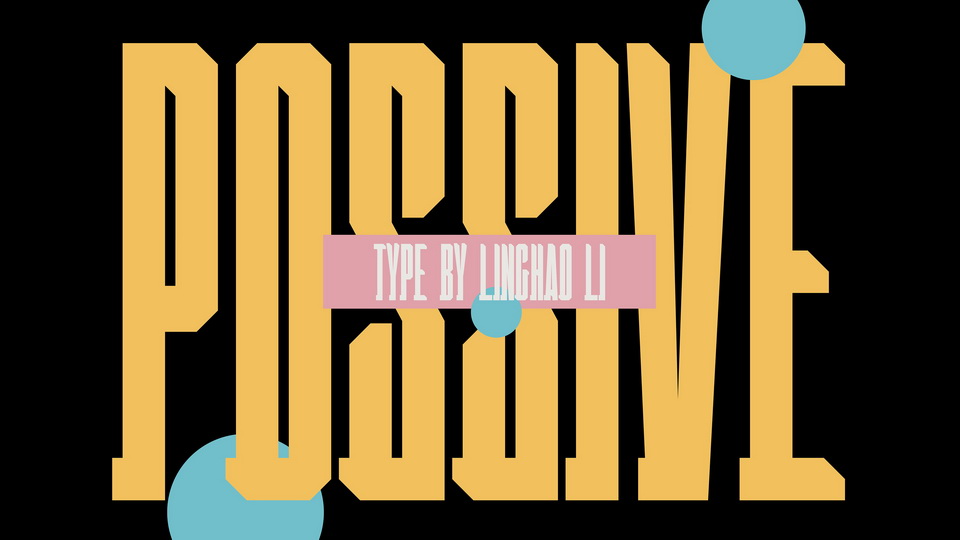
Download Possive typeface, a ultra narrow display font family in two styles. Possive font has an extraordinarily strong and sharp-edged style to express this particularly painful love.
Designer: Linghao Li